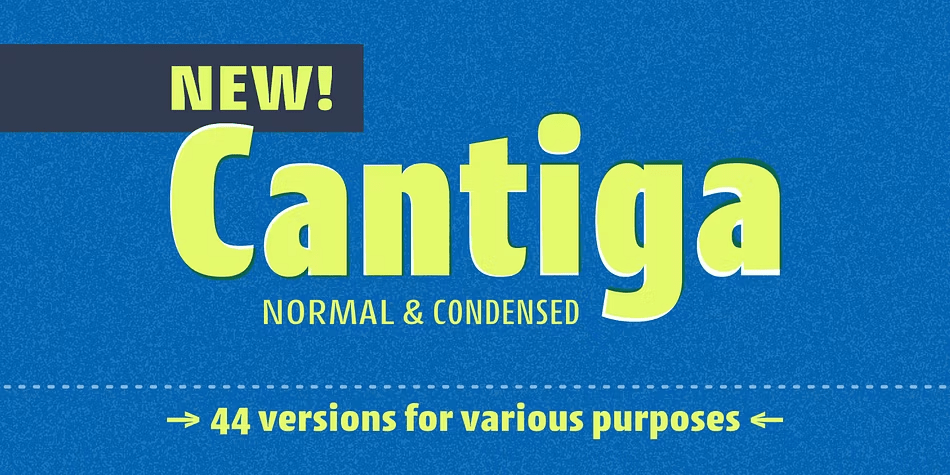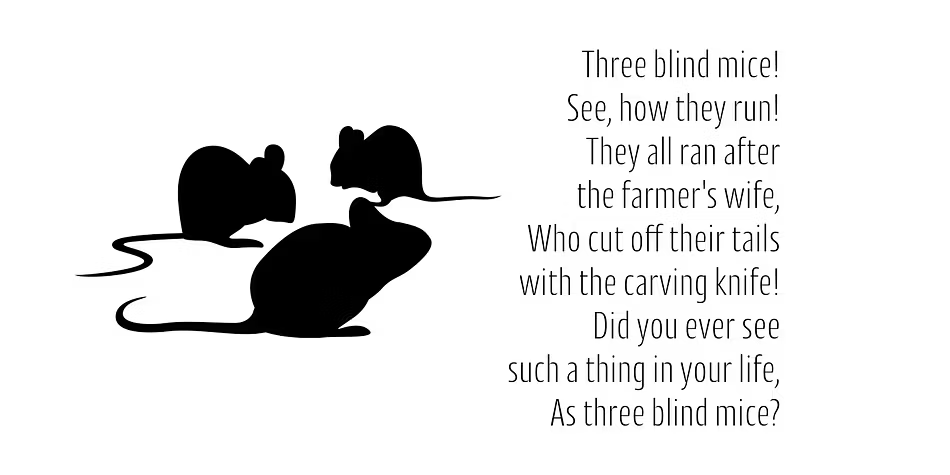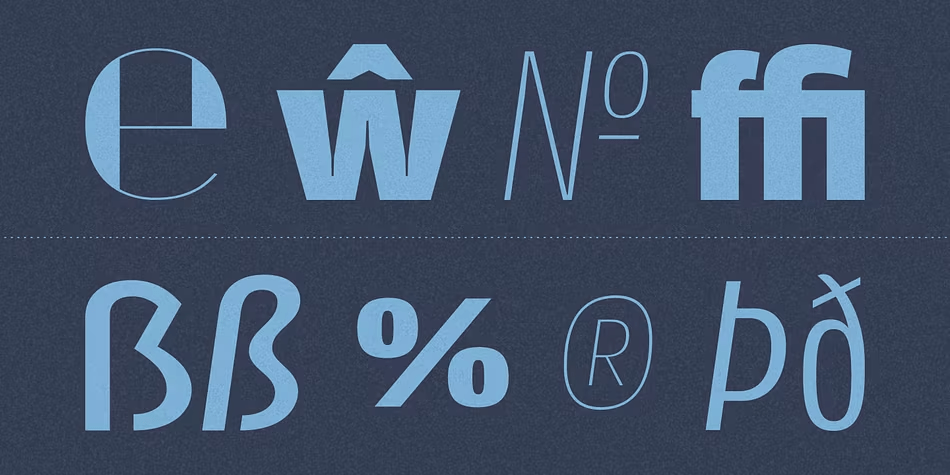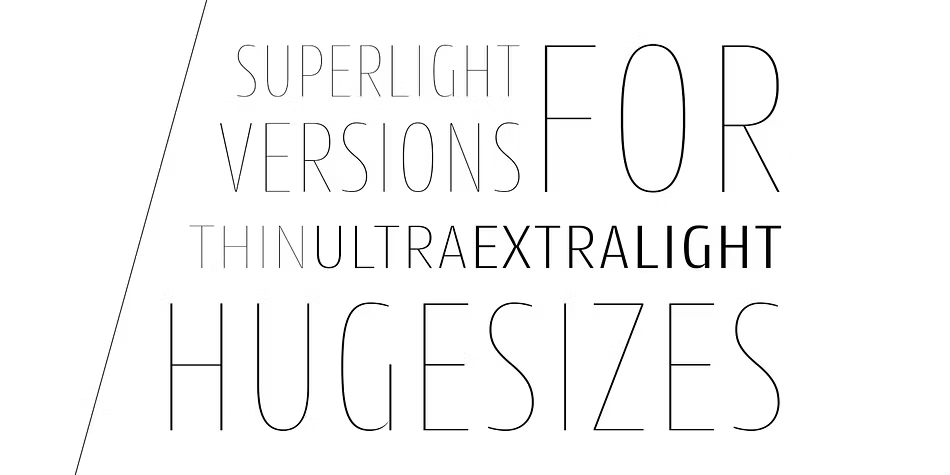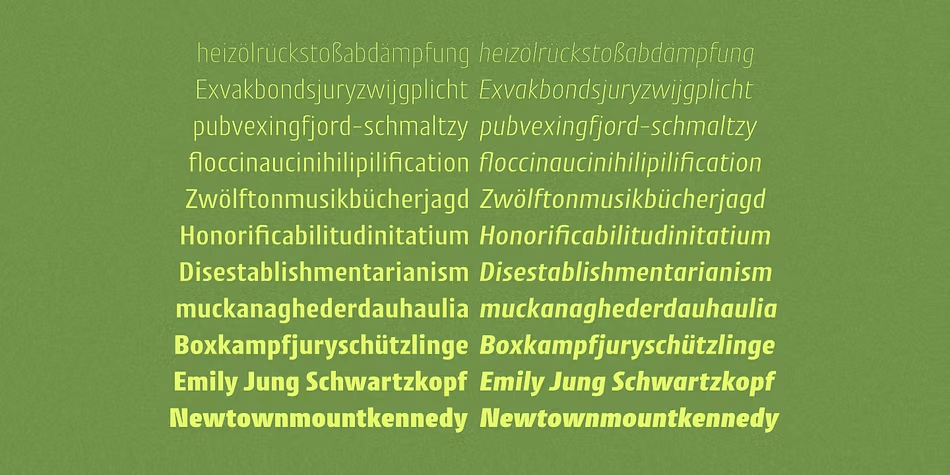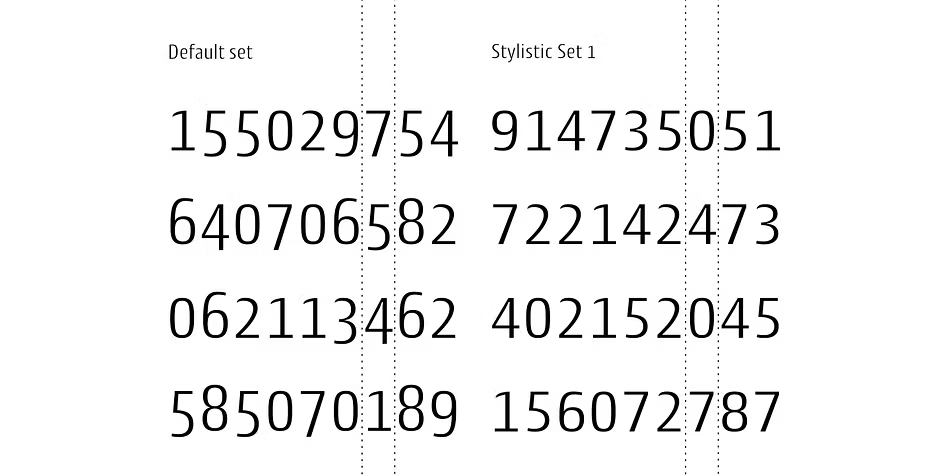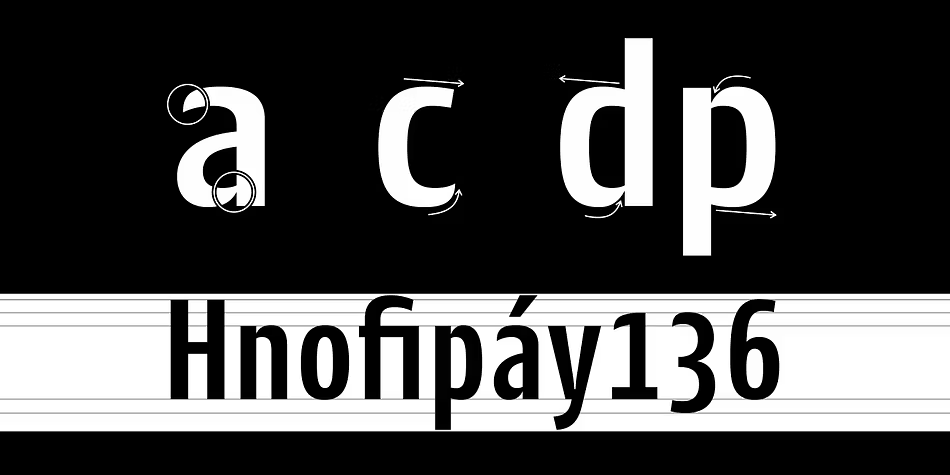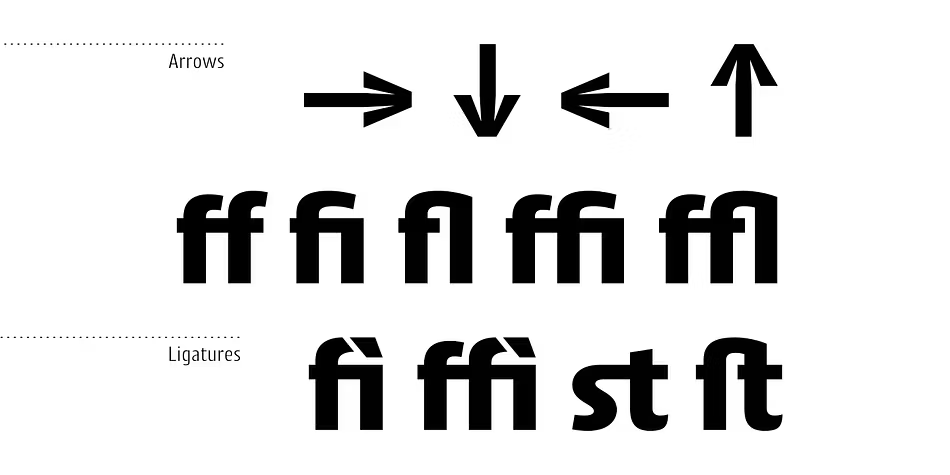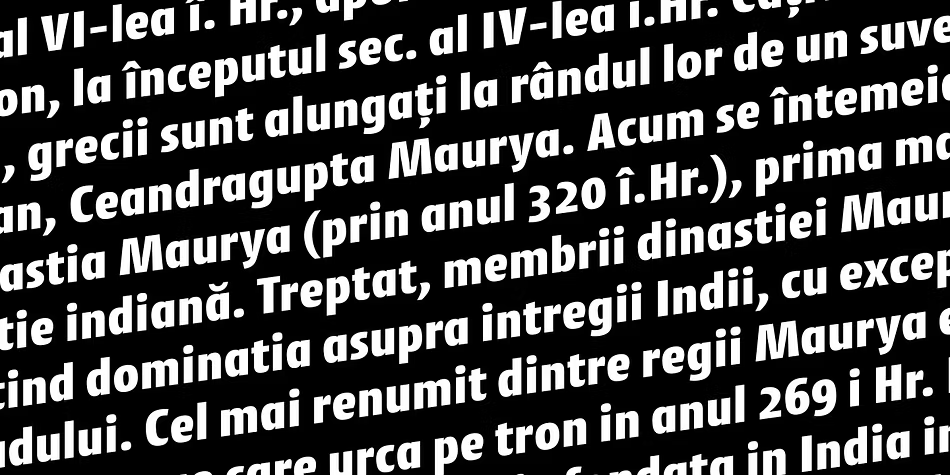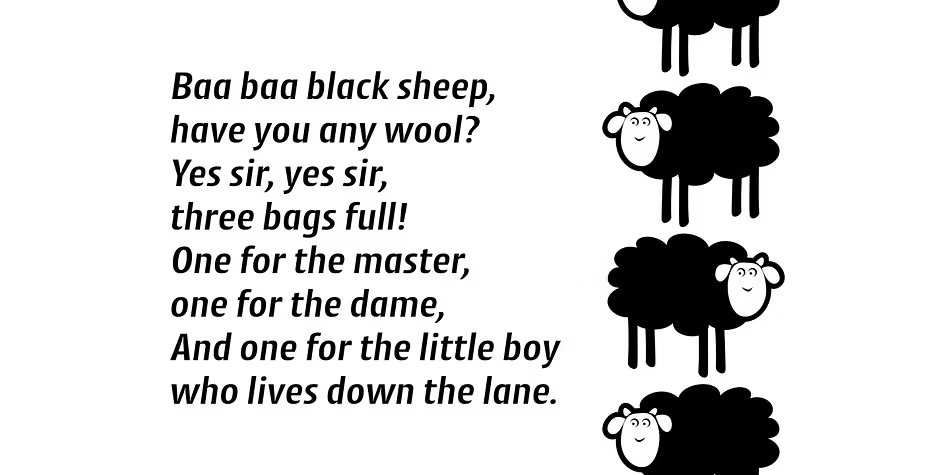
Cantiga
Choose thinner (or thicker) versions for titles, and intermediate versions (normal, medium, etc.) to small sizes. Explore the condensed versions when you need to save space. Use the light versions for special cases in huge sizes. Cantiga intended to be your new "Swiss army knife" sans typeface..
The Cantiga family consists of 2 widths (normal and condensed) with 11 weights each, plus their respective italic versions. The fonts are available in OpenType PS format and have extended character set to support CE, Baltic, Turkish as well as Western European languages.